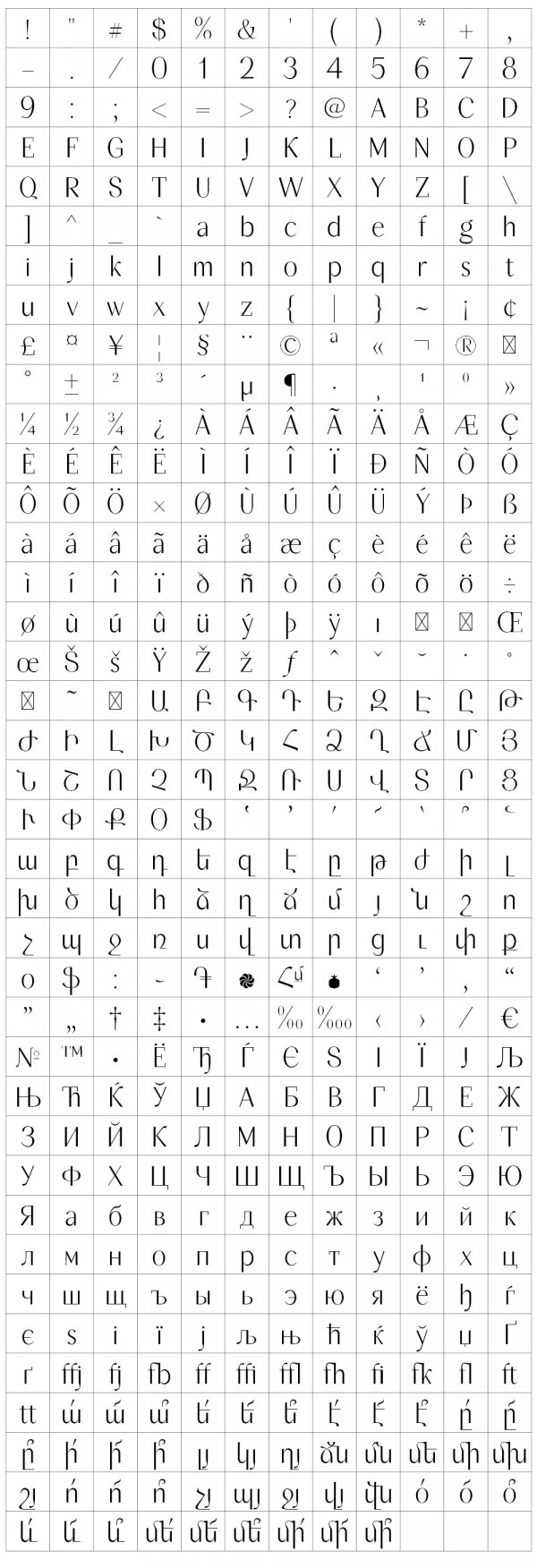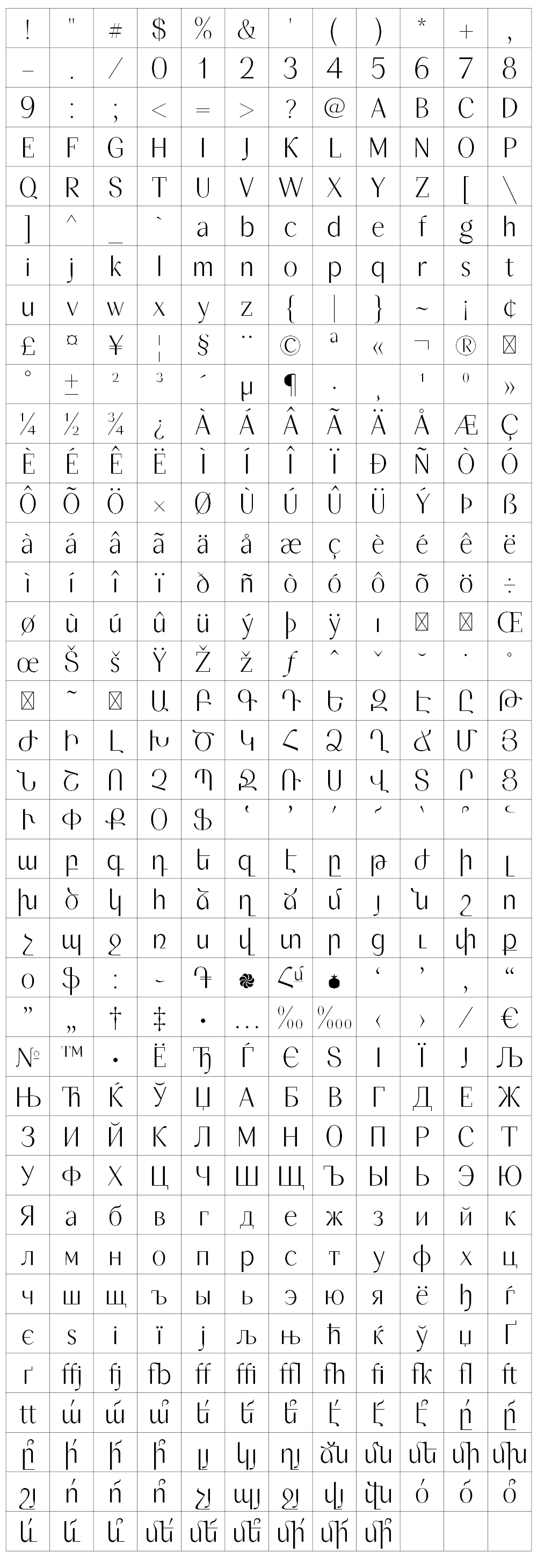
ASF Daniel Slant Light
Designer: Angella Poghosova
Design date: 2013
The font family includes Armenian, Latin and Cyrillic alphabet systems.
The font can be used as a display font.